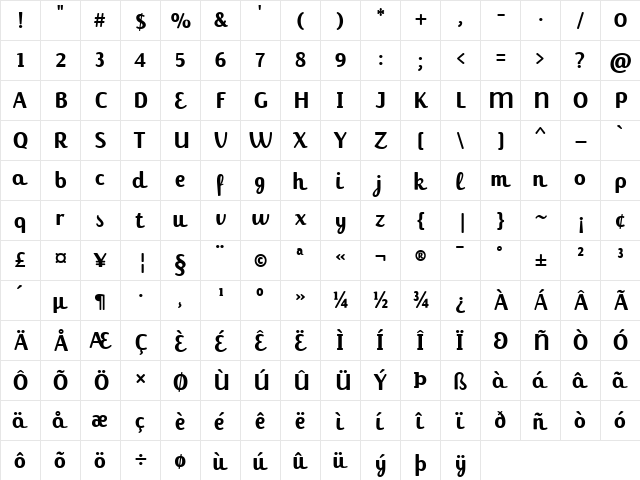
JackieFullBold Bold Font Preview
JackieFullBold Bold
Design Context for JackieFullBold Typeface
JackieFullBold is a composed and adaptable typeface that performs quietly and consistently across a wide range of design contexts. The heavy weight commands attention and anchors typographic hierarchies.